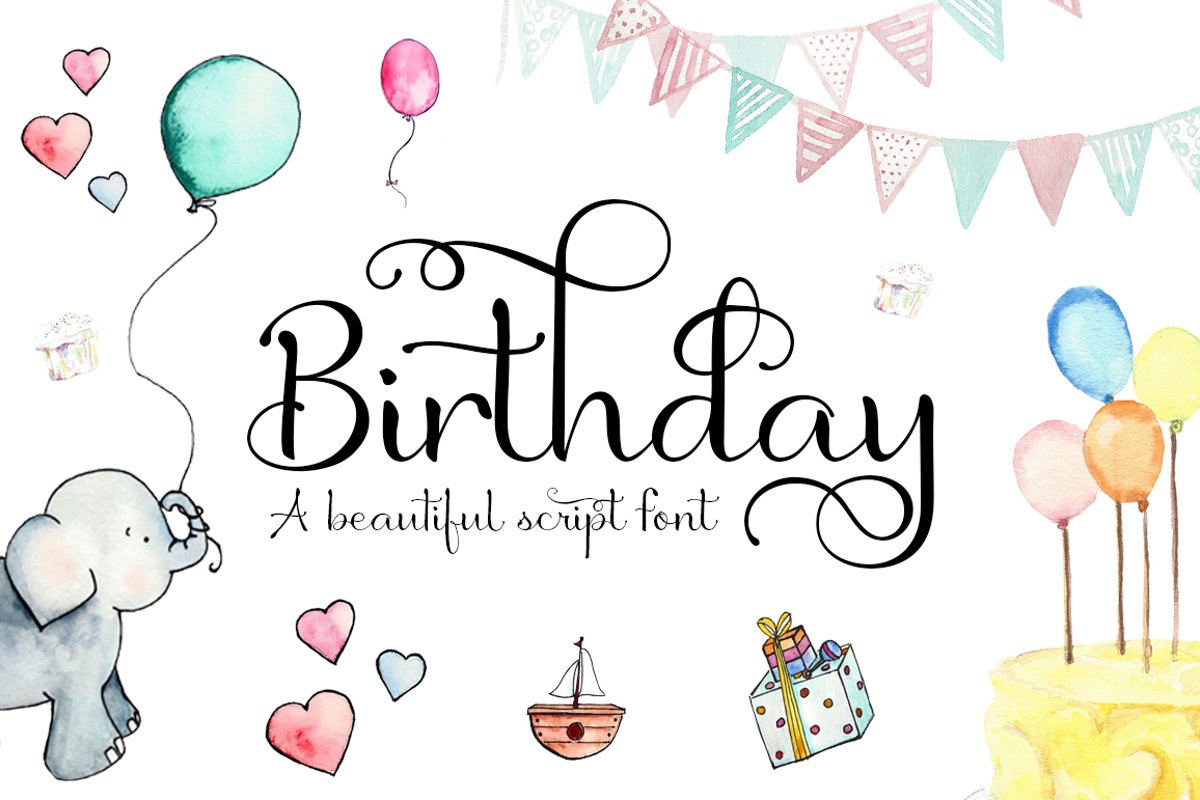
Birthday Script Font
Here's a cute script typeface perfect for greetings cards, invitations, birth announcements and much much more!
Birthday has 377 glyphs which includes standard and discretionary ligatures and alternates to make your words look beautifully elegant.
Birthday also works really well as a neat handwriting font for a more formal look to your designs and for larger amounts of text. Whichever way you use it, you'll be sure to have some fun playing with the alternates to find the right look for each word :-)